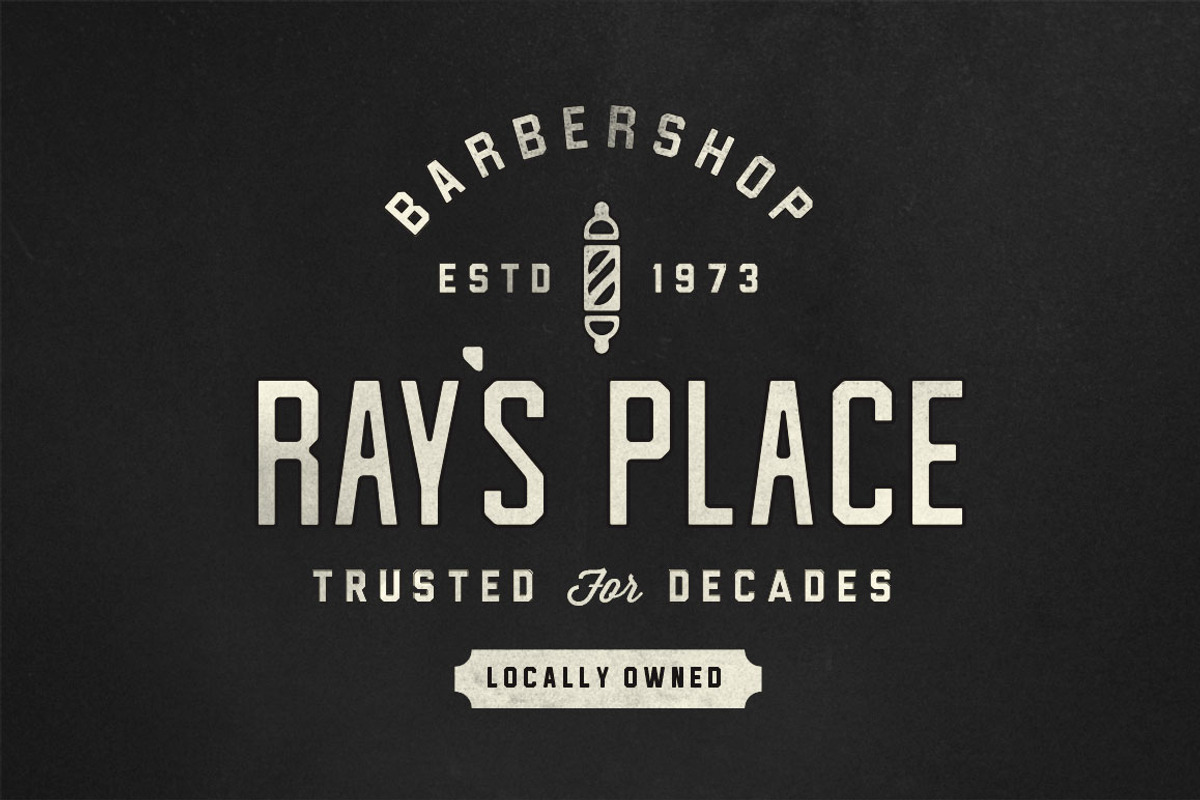
Cast Iron Family
Cast Iron is a bold, tough, industrial typeface. Originally, I created Cast Iron to be a stand alone free font. But I loved using it, so I thought I would expand the family to 4 weights and 3 finishes (Clean, Rounded, Rough). Cast Iron has been downloaded by tens of thousands of individuals who absolutely love it. I thought I'd give you more! With 12 font files in total, The Cast Iron Family boasts versatility & a complete package. Get your money's worth for only $15!